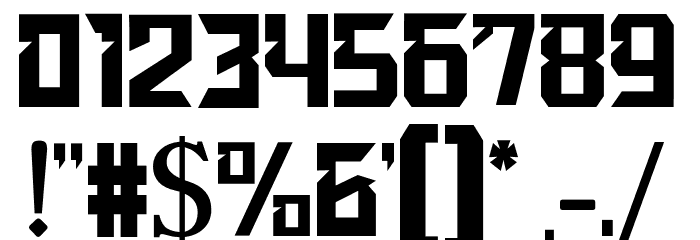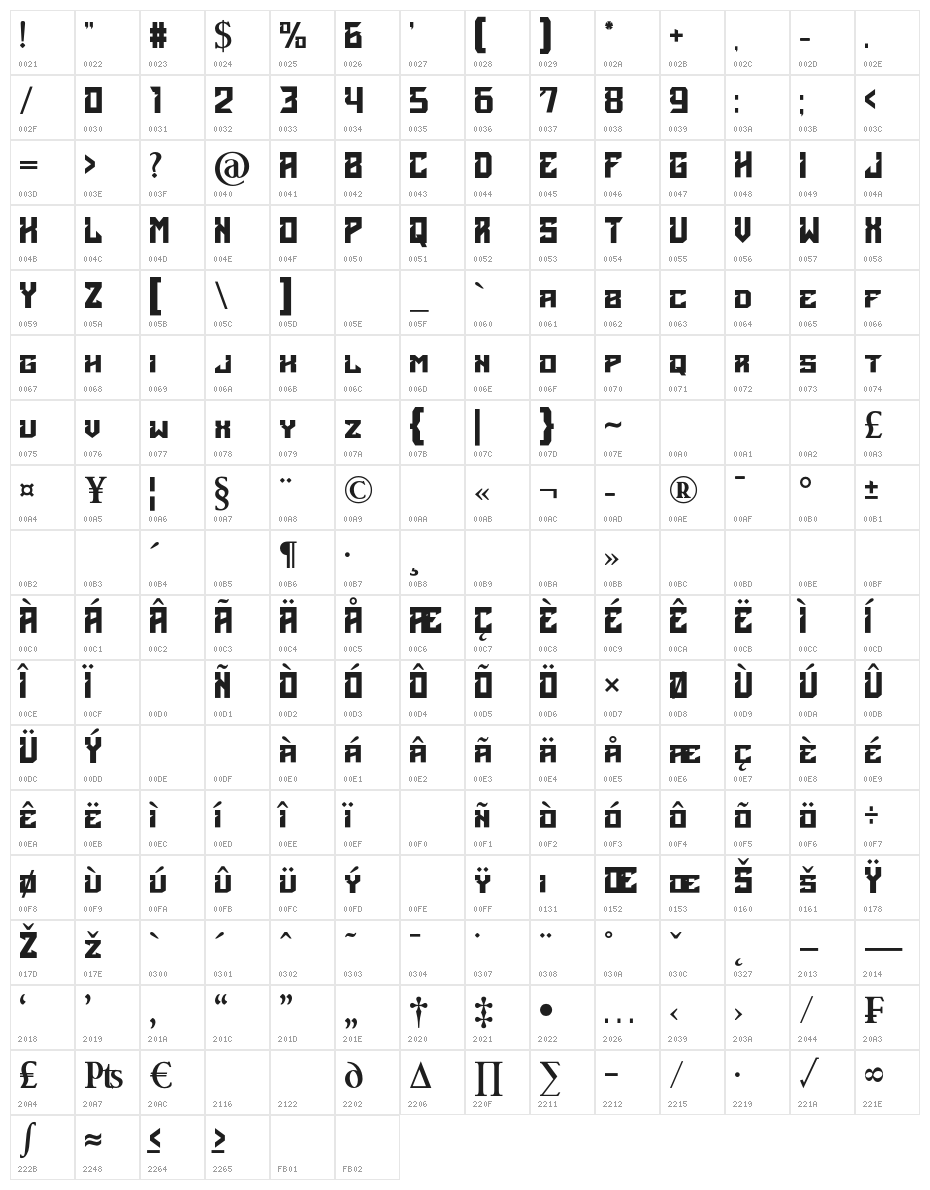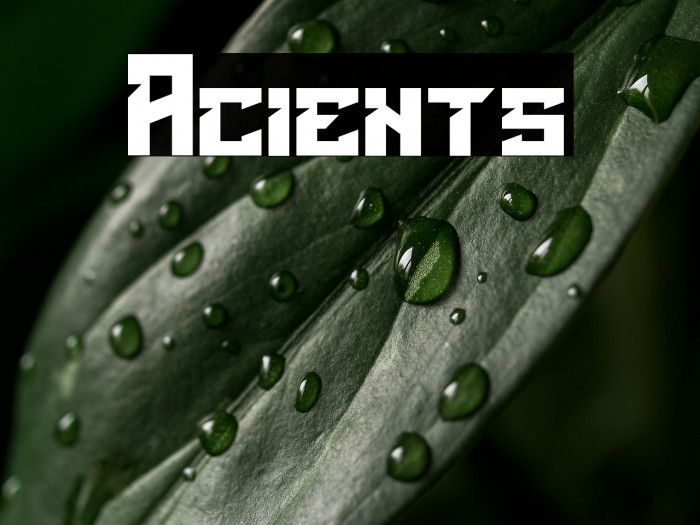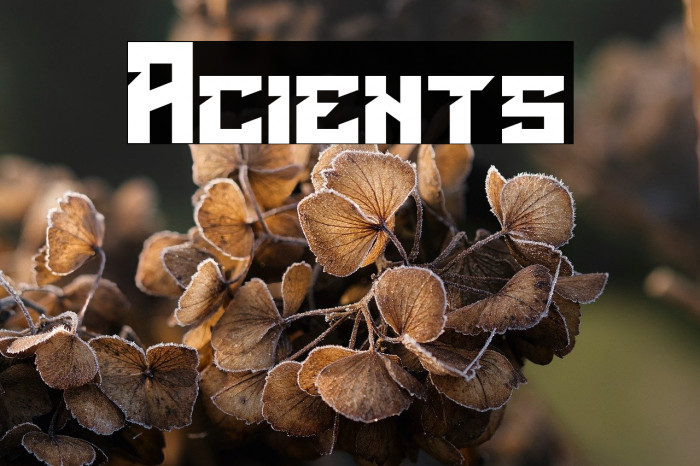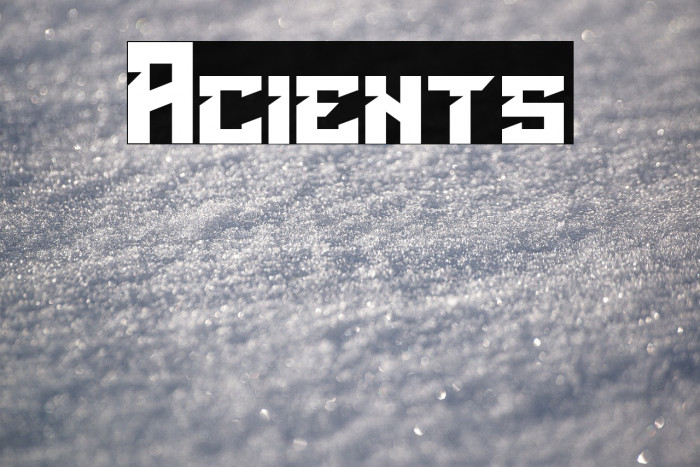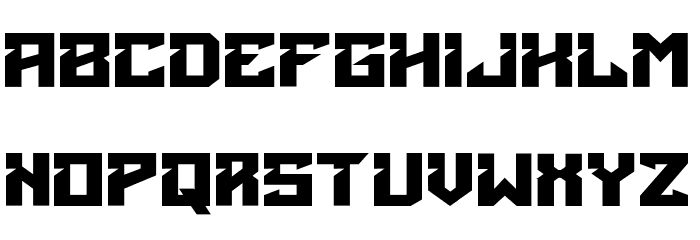
Acients Font
Acients Description
This font features a bold, geometric design with sharp angles and a strong presence. The uppercase letters are particularly striking, with a blocky, almost futuristic appearance. The lowercase letters maintain the same angular style, creating a cohesive look throughout. Numbers and special characters are designed with the same boldness, ensuring consistency across all text elements. The font's unique style makes it stand out, ideal for projects that require a modern and edgy aesthetic.
| Proposed Projects | Ideal for branding, posters, video game graphics, and any project needing a modern, edgy look. |